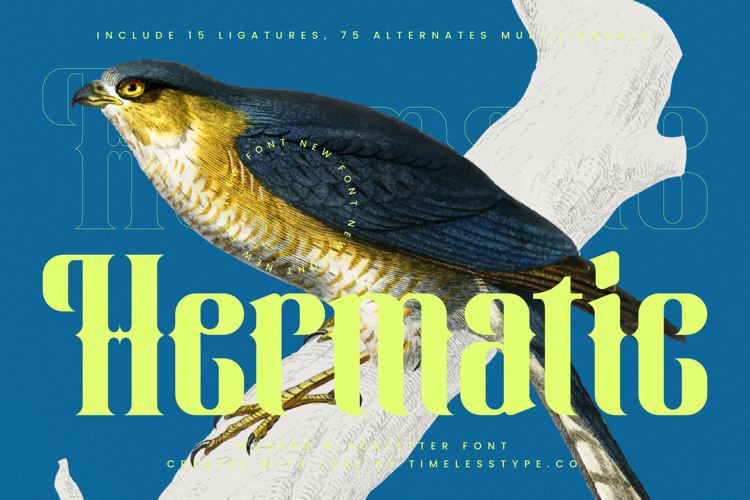
Hermatic - Modern Blackletter Font
Hermatic is a modern blackletter display font that fuses gothic strength with contemporary style. Its bold strokes, sharp edges, and dramatic flair create a commanding presence, making it an excellent choice for projects that need impact and sophistication. With 15 ligatures and 75 alternates, Hermatic offers extensive versatility, allowing designers to create unique compositions that feel powerful and dynamic while retaining artistic refinement.
This font is built to excel in headline typography, where its striking shapes and heavy weight make an immediate impression across posters, banners, and editorial spreads. In branding and logo design, Hermatic communicates authority and bold creativity, making it ideal for high-end fashion labels, music or entertainment brands, and lifestyle products that want to convey strength and individuality. Its dramatic gothic tone also makes it perfect for packaging design, particularly for luxury goods, artisanal beverages, and limited-edition items where the typography itself must be a visual centerpiece.
Hermatic thrives in advertising campaigns, event promotions, and social media graphics, where its alternates and ligatures inject character and variety, giving every design a custom feel. For editorial layouts, book covers, and cultural projects, the font adds a sense of history blended with modern energy, enhancing narrative depth and visual appeal.
With multilingual support, Hermatic adapts to global projects, ensuring its gothic-modern charm resonates across international markets.
Ultimately, Hermatic is more than a blackletter—it is a statement of bold artistry and timeless strength. Whether used for headlines, branding, packaging, or advertising, it ensures every project carries drama, elegance, and unforgettable presence.